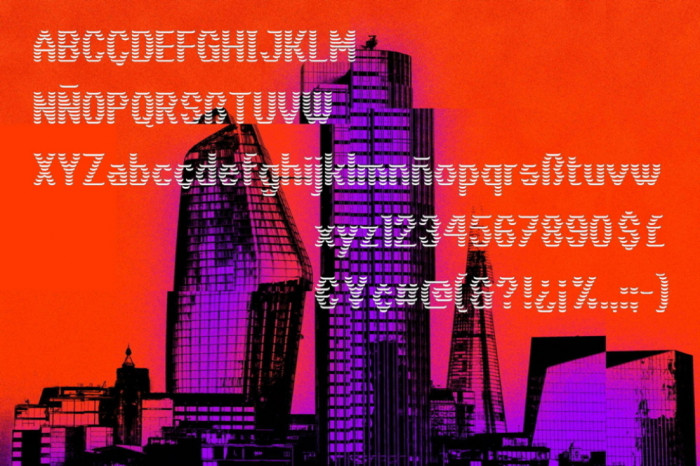
@Dmitriy Sychiov: Thank you very much for your words and suggestions. I don't knew the work of FutureMix, that it's very similar to mine (but with "5-coins" ? towers).
An old project put a day, inspired by four's Boxthorn and some others. Kerning.
really neat stuff, cool sample too <3
Very interesting. But my first associations are not with skyscrapers, but with coins that Scrooge counts and puts on top of each other. I saw a similar approach in the logo of the television song contest in Russia, ПЕСНИ (SONGS), in the picture, but there it seems to be sound waves. Also it feels like inspired by mx pilebar, but with the Cyrillic alphabet! Strange top of letter З, arm of з other than э, I can also see the desire to make ы ъ Ф narrow, which many non-Cyrillic designers have, but I would not change this here.
@Dmitriy Sychiov: Thank you very much for your words and suggestions. I don't knew the work of FutureMix, that it's very similar to mine (but with "5-coins" ? towers).